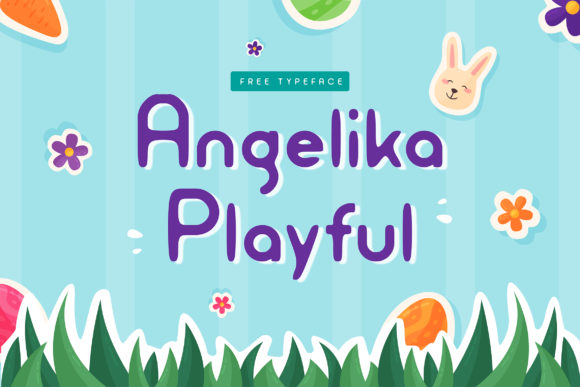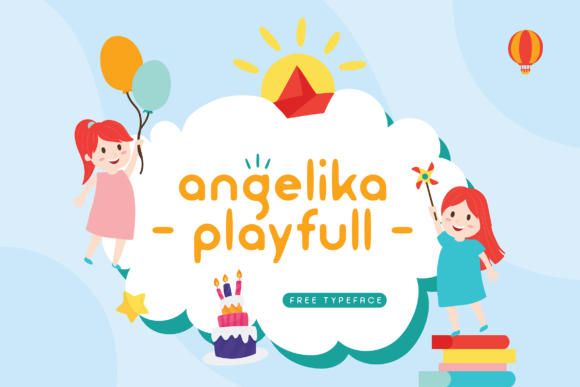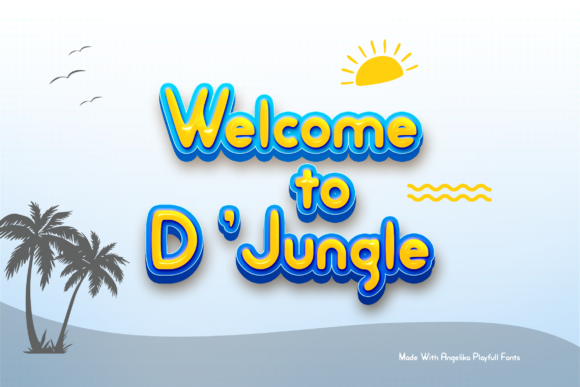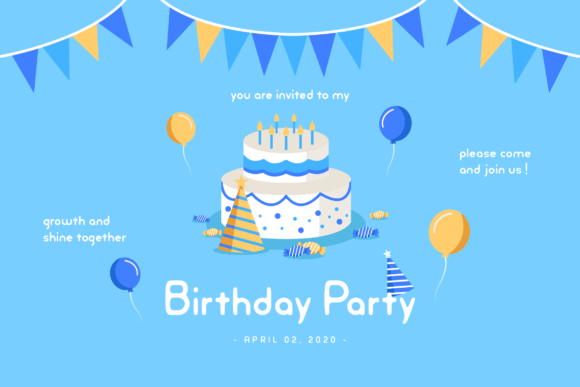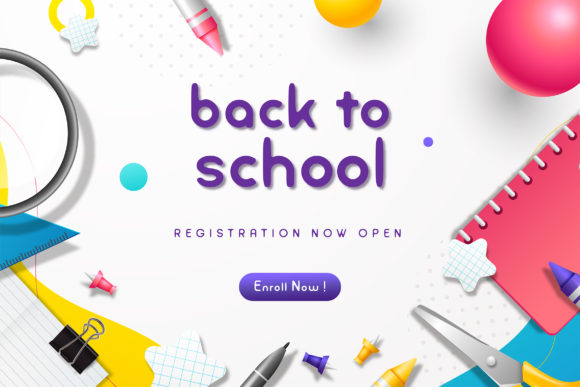
Angelika Playful
About Angelika Playful Font
Angelika Playful is a cute and playful display font. It’s the perfect font for adding a cheerful feel to your upcoming crafting projects. Get inspired by its authentic feel and use it to create gorgeous eye-catching social media posts, cute greeting cards, and awesome crafts!